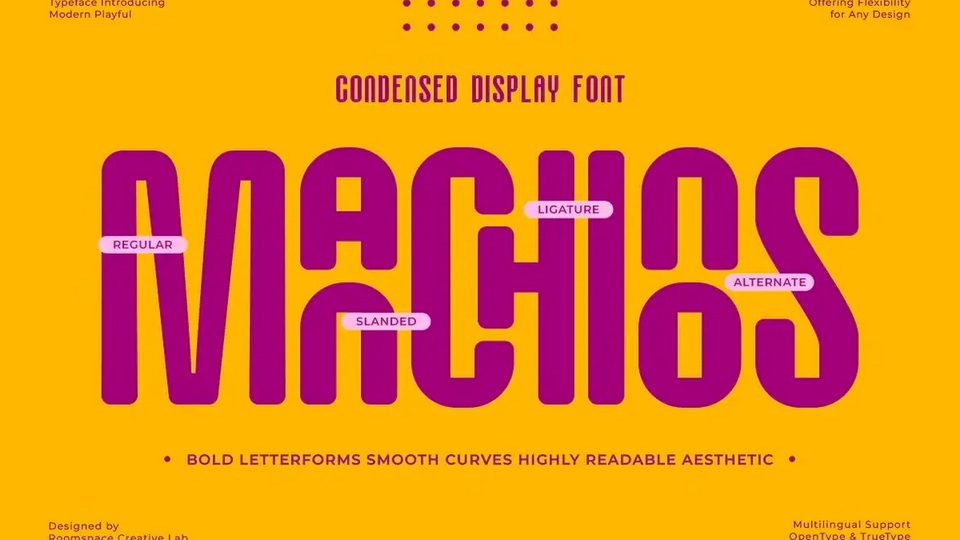
Manchinos Font › Fontesk – Download Grátis
Download Manchinos font, a condensed rounded display sans serif typeface designed to bring a bold and modern touch to your creative projects.